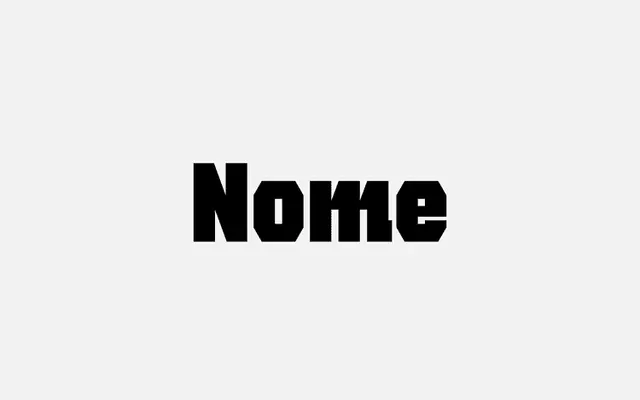
A blocky heavyweight display sans with angled joints, positioned as a modern alternative to varsity lettering styles.
Built around uniform, weighty letterforms with precisely chiseled details and tightly angled joints that give it more crispness than a typical varsity face. Available as a single OTF file, it targets headline and identity work where strong presence is needed without the nostalgic roughness of traditional collegiate typefaces. A compact, single-weight release from Double Dagger suited to posters, logotypes and short-run display settings.
A heavyweight, uniform display sans with blocky letterforms and angled joints; positioned explicitly as a varsity-style alternative, which places it firmly in the display category rather than a functional sans-serif.